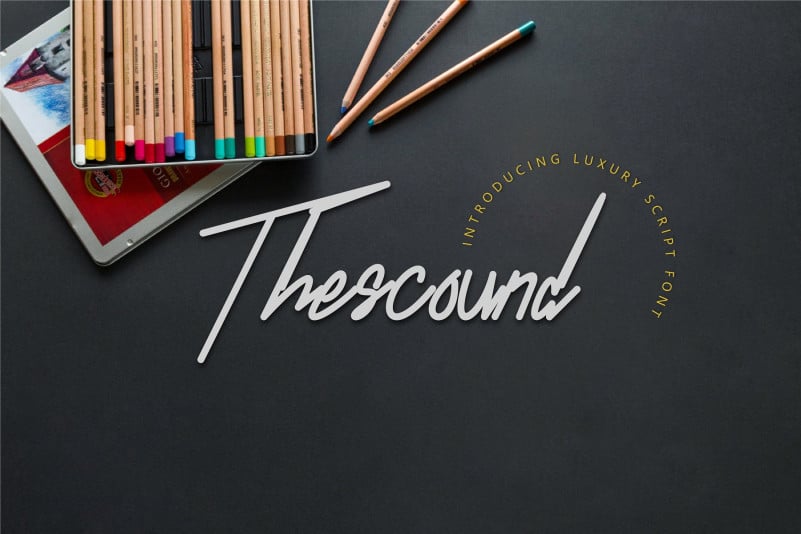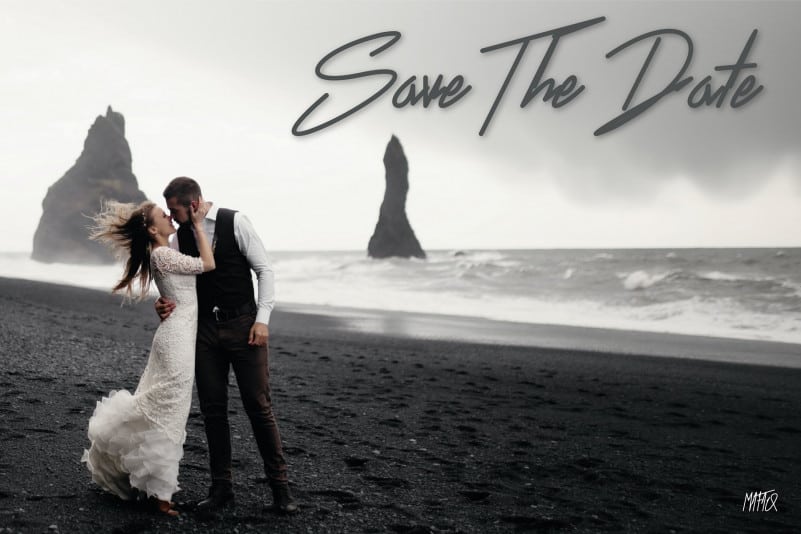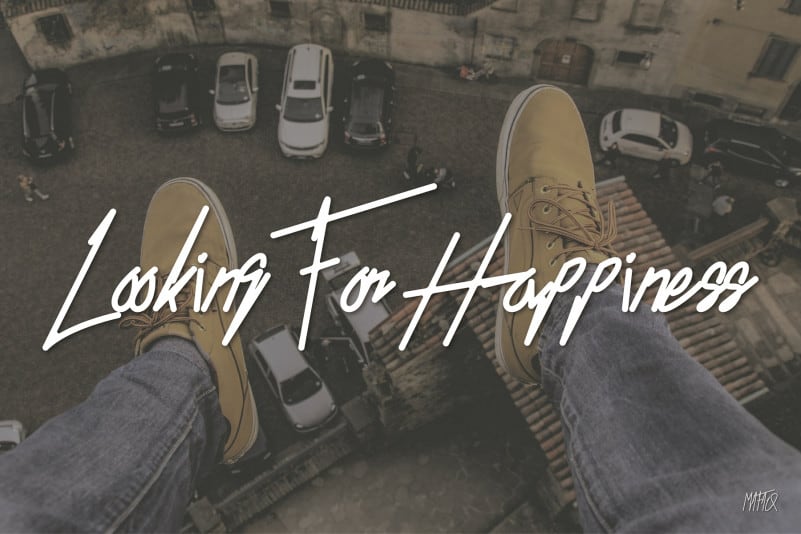
Thescound Handwritten Font
Meet Thescound – a bold and stylish handwritten script font!
Designed with a modern yet elegant touch, Thescound is perfect for bringing personality and confidence into your designs. Whether it’s for social media posts, logos & branding, invitations, product packaging, photography watermarks, or wedding projects, Thescound will make your work stand out beautifully.
• Natural handwritten flow with a luxurious script feel
• Great for lifestyle projects, adventure vibes, and creative branding
• Works wonderfully on posters, labels, invitations, and digital content